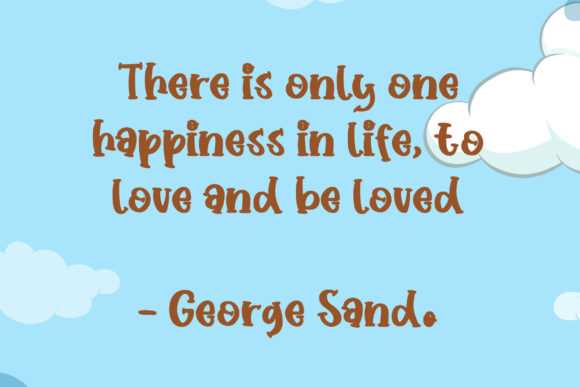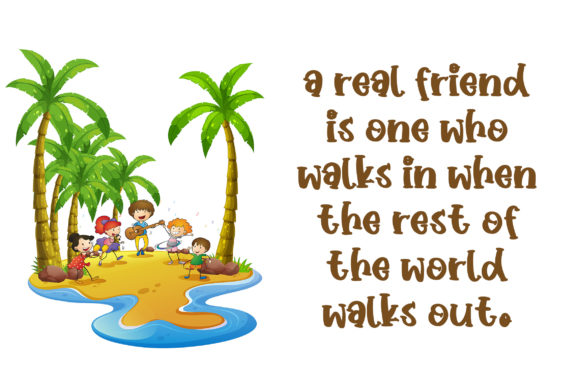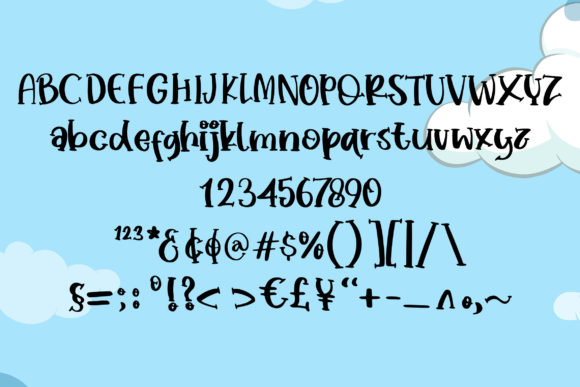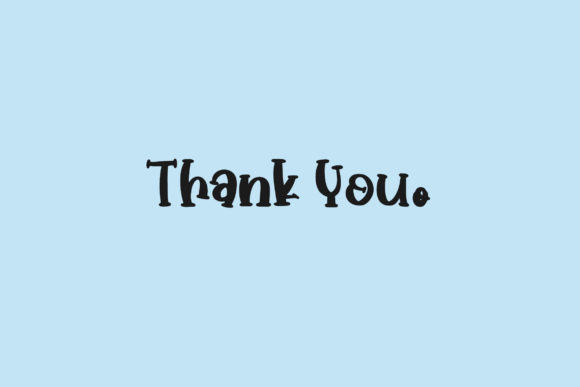
Discover the Charm of Haiya Font: A Cute and Versatile Display Font
Are you a designer or crafter looking for a font that adds a touch of loveliness to your creations? Look no further than Haiya Font! This adorable display font is perfect for a variety of projects, from cartoon-related designs and children’s games to any creation that requires a charming and playful touch.
What is Haiya Font?
Haiya Font is a unique and captivating display font that is sure to capture the hearts of designers and crafters alike. Its cute and charming design makes it an excellent choice for projects that require a friendly and approachable feel. Whether you’re working on a children’s book, a game, or a website, Haiya Font is sure to bring a smile to your audience’s faces.
Key Features of Haiya Font
- Cute and Charming Design: Haiya Font boasts a delightful design that is sure to add a touch of whimsy to your creations.
- Versatile: This font is perfect for a wide range of projects, from cartoon-related designs and children’s games to websites, posters, and more.
- Easy to Read: Despite its playful design, Haiya Font is easy to read, making it perfect for body text and headings.
- High-Quality: Haiya Font is a high-quality font that is designed to deliver exceptional results.
Uses of Haiya Font
Haiya Font is an incredibly versatile font that can be used in a variety of projects, including:
- Cartoon-Related Designs: Add a touch of fun and playfulness to your cartoon-related designs with Haiya Font.
- Children’s Games: Create engaging and interactive children’s games with Haiya Font.
- Websites: Use Haiya Font to add a friendly and approachable touch to your website.
- Posters and Flyers: Create eye-catching posters and flyers with Haiya Font.
- Social Media Graphics: Add a touch of personality to your social media graphics with Haiya Font.
Why Choose Haiya Font?
So, why choose Haiya Font for your next project? Here are just a few reasons:
- Unique Design: Haiya Font boasts a unique and captivating design that is sure to set your project apart.
- High-Quality: Haiya Font is a high-quality font that is designed to deliver exceptional results.
Tips for Using Haiya Font
Here are a few tips for using Haiya Font in your projects:
- Pair with Other Fonts: Pair Haiya Font with other fonts to create a unique and visually appealing design.
- Use for Headings: Use Haiya Font for headings and titles to add a touch of personality to your project.
- Experiment with Colors: Experiment with different colors to find the perfect combination for your project.
| Font Name | Haiya Font |
| Author | dapiyupi |